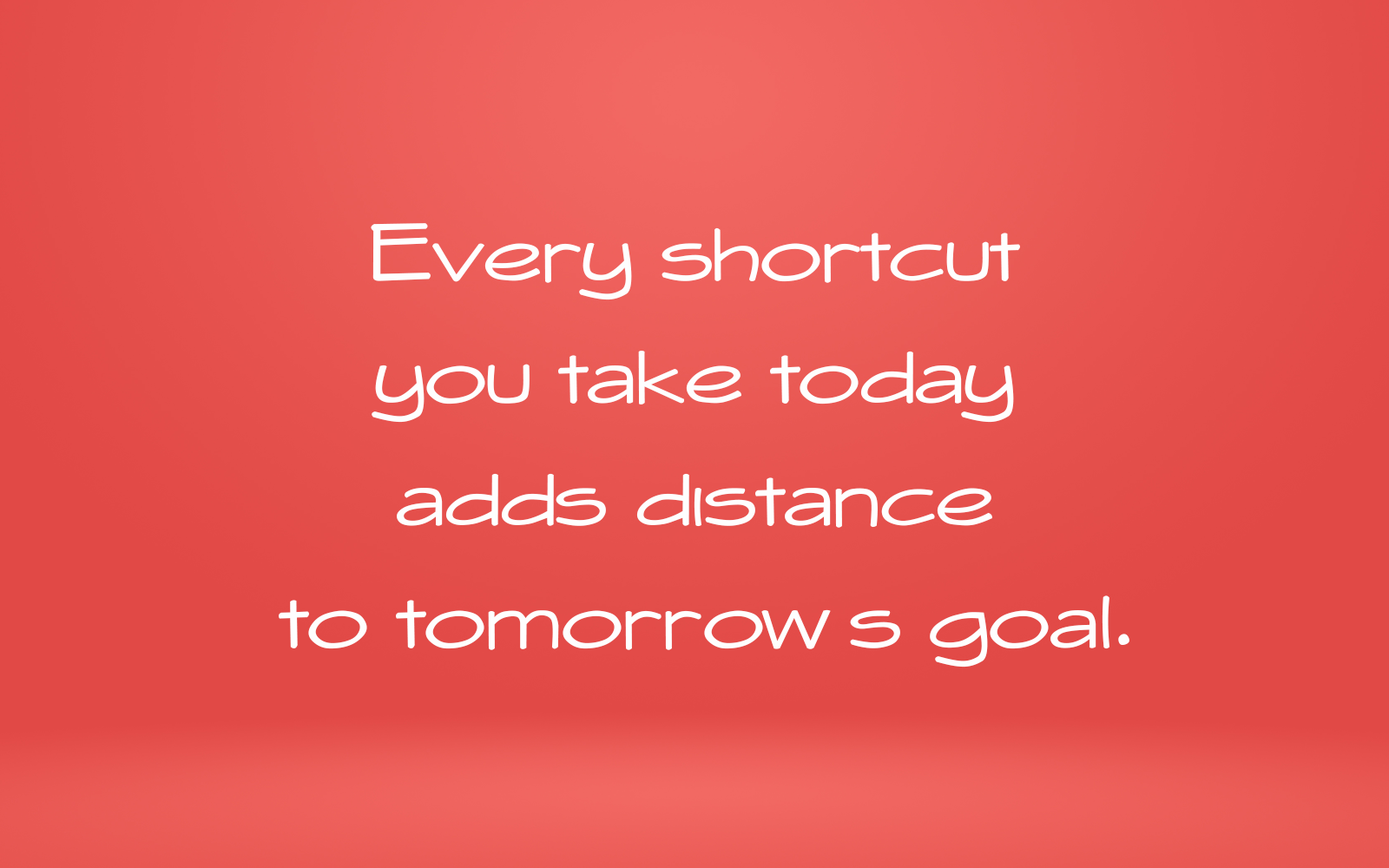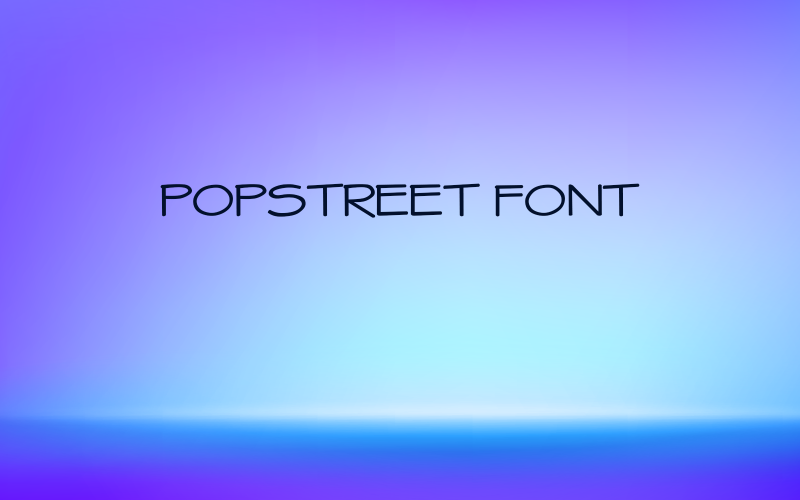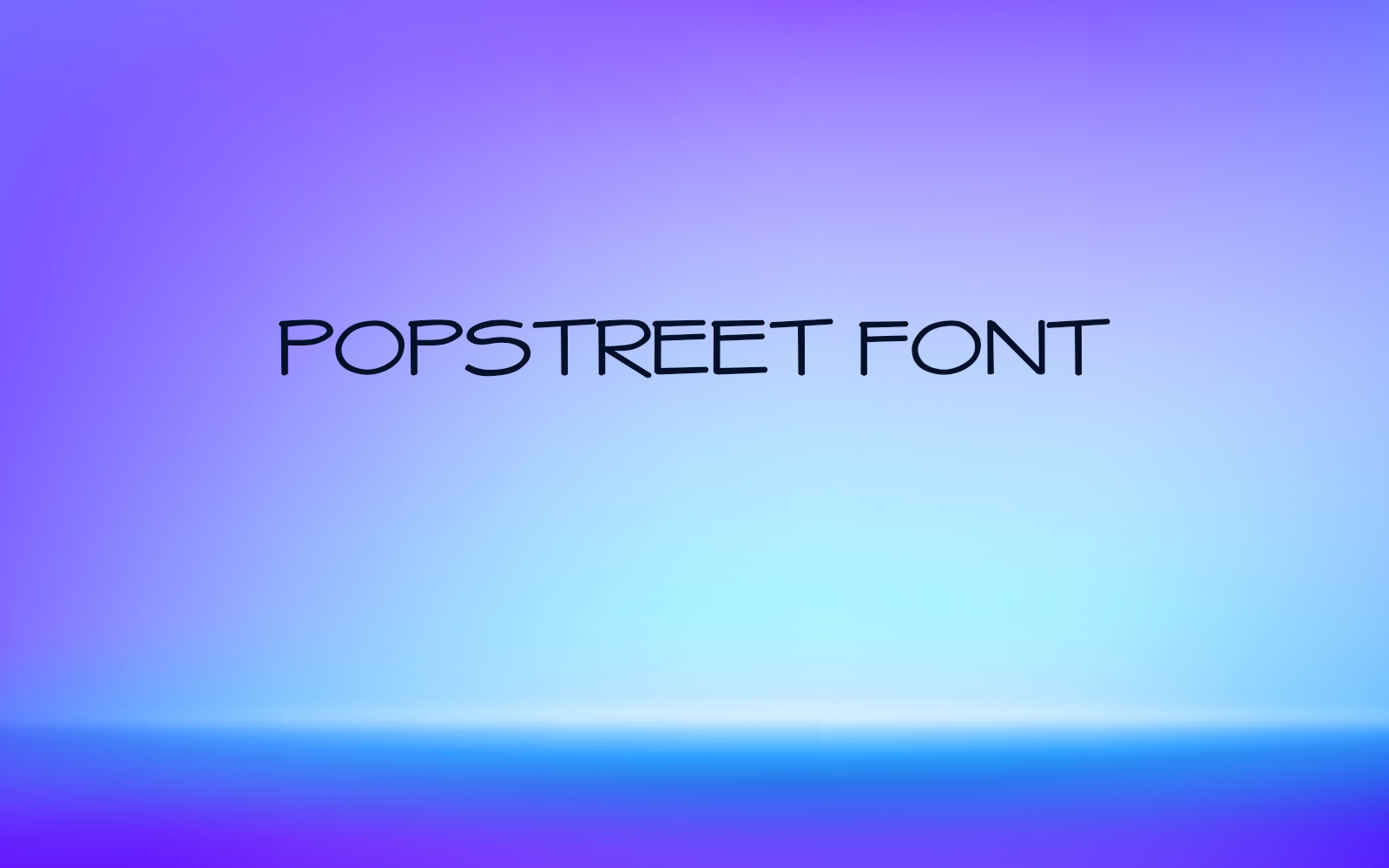
Say hi to Popstreet – the font that speaks the language of today’s streets.
It’s casual, confident, and full of personality—just like the coolest local brands.
Whether it’s a food truck, coffee shop, or urban wear label, Popstreet brings charm with character.
Be bold. Be real. Be unforgettable.